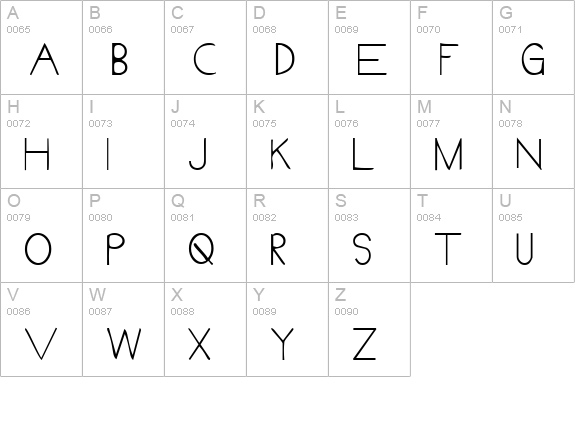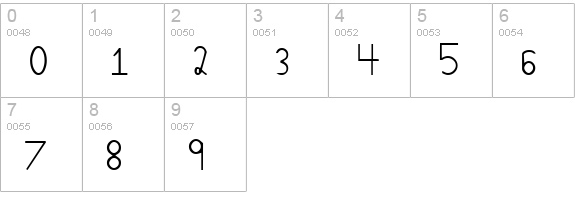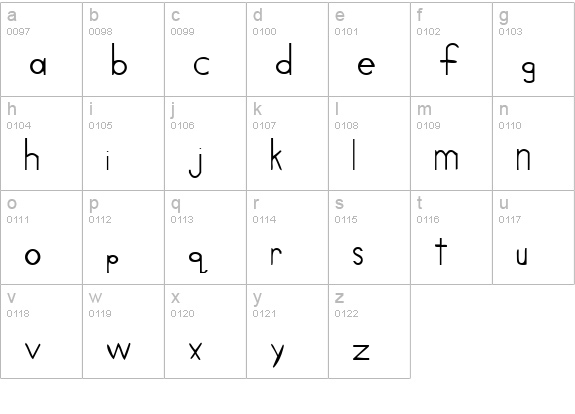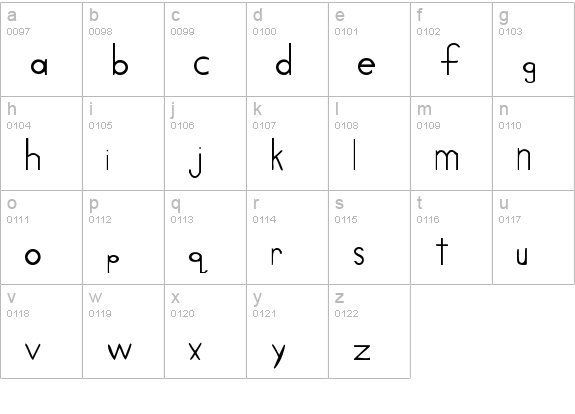
Cueue Cheesy Font Details
Introducing Cueue Cheesy font, a fun and playful typeface that will add a touch of whimsy to your designs. This font features unique and quirky letterforms with a cheesy twist, perfect for projects that call for a lighthearted and creative touch. Whether you're working on branding, packaging, invitations, or any other creative project, Cueue Cheesy font is sure to make a statement. The best part? Cueue Cheesy font is available for free download at FontsMarket.com! Simply visit the website and start using this delightful font in your projects today. Don't miss out on this opportunity to add a cheesy charm to your designs with Cueue Cheesy font.